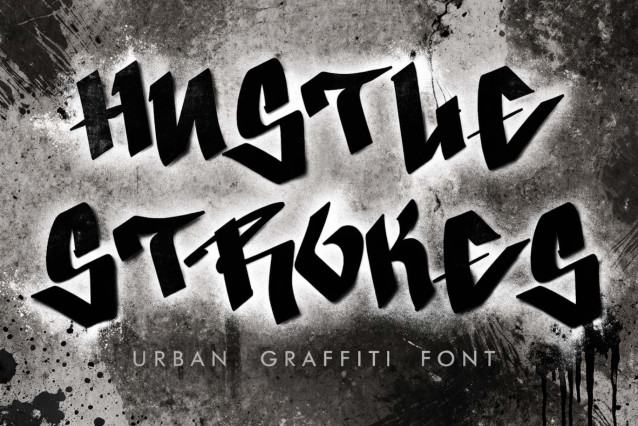
Hustle Strokes Font
Inject the raw energy of the concrete jungle into your designs with Hustle Strokes, a premier urban graffiti font. This high-impact display typeface features aggressive, angular strokes and a “hand-tagged” rhythm that captures the rebellious spirit of street art. With its bold weight and “chisel-tip” aesthetic, Hustle Strokes is the go-to choice for edgy streetwear branding, extreme sports logos, underground music event posters, and high-energy social media headers.